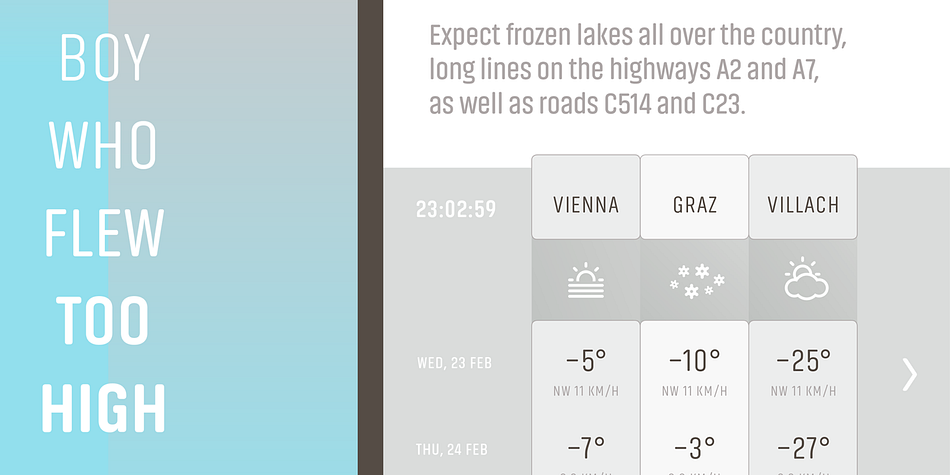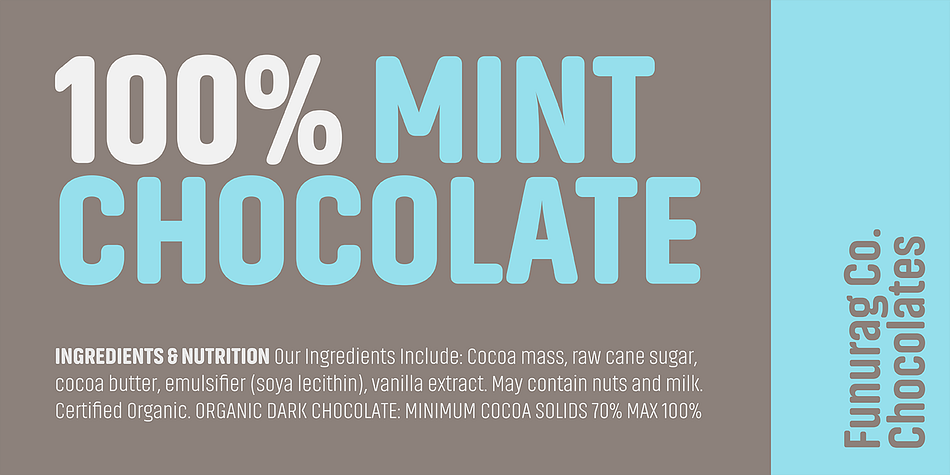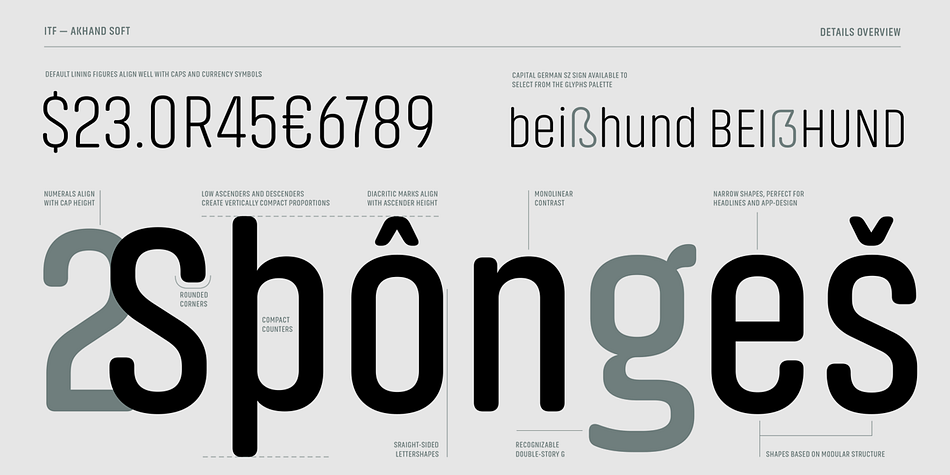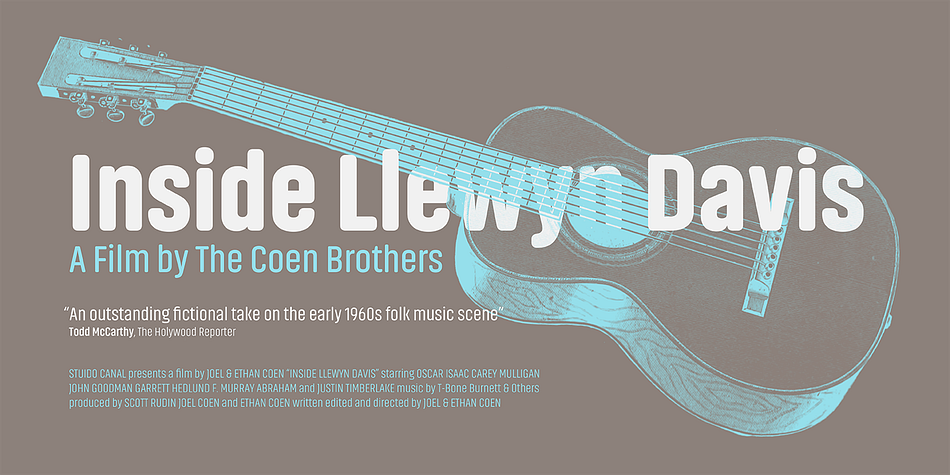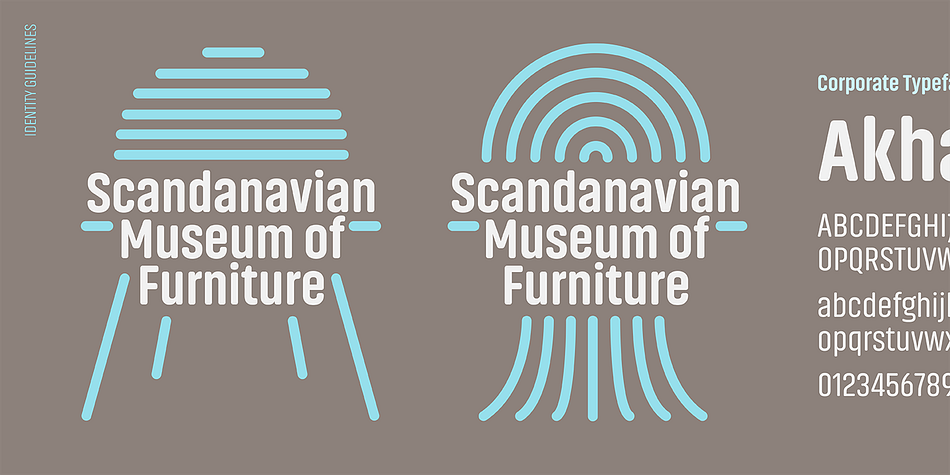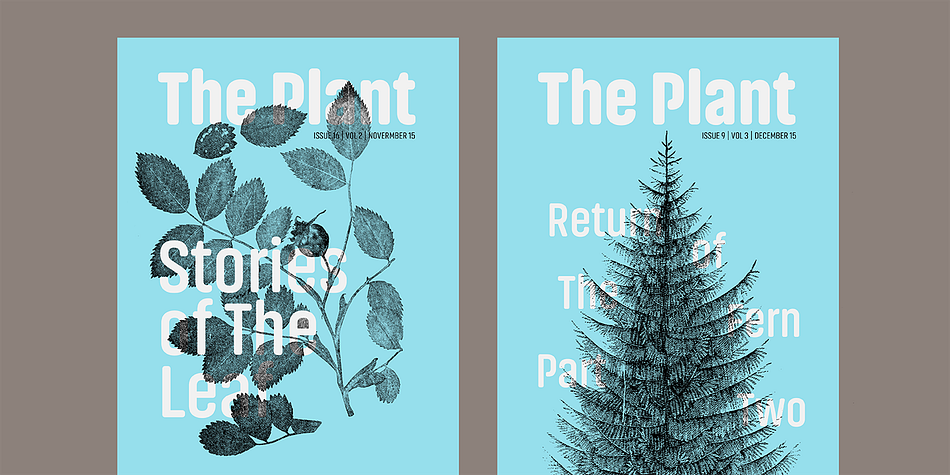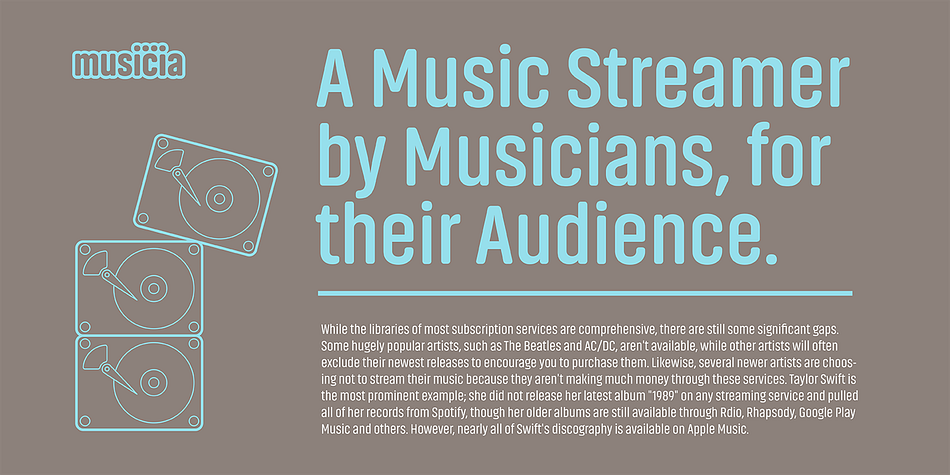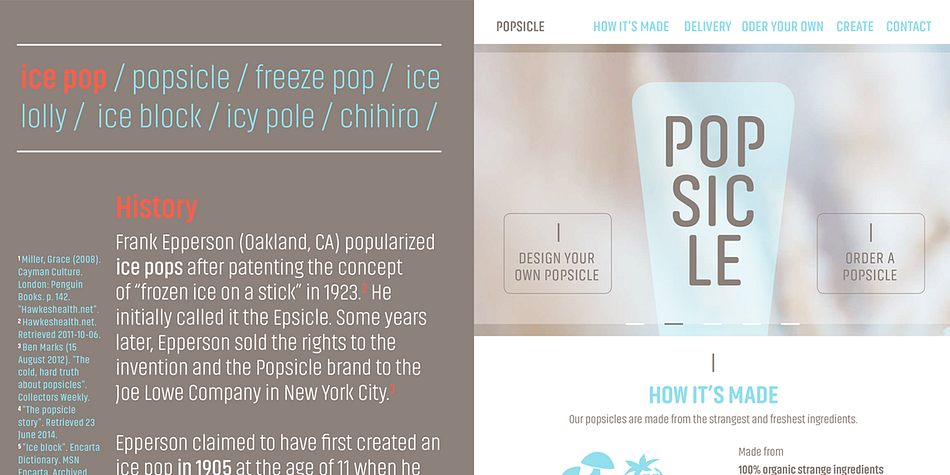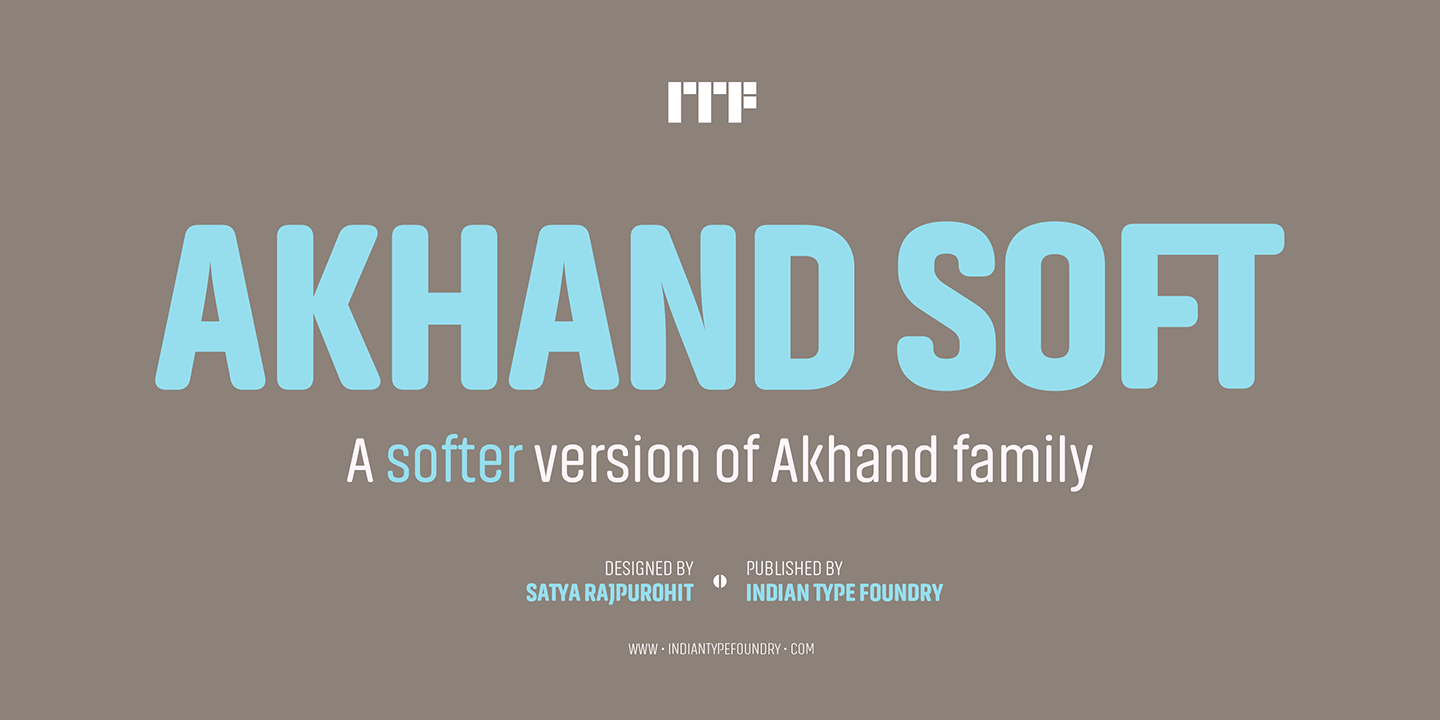
Designed by Satya Rajpurohit, Akhand Soft is a display sans font family. This typeface has eight styles and was published by Indian Type Foundry.
Akhand Soft is an extension to our popular Akhand series.
All of the corners of the typeface’s characters are rounded, making Akhand Soft a friendlier and more informal variant of the Akhand Latin family. Featuring condensed, straight-sided letterforms, Akhand Soft is a virtually mono-linear sans serif design. The construction of the letters are based on a modular structure, but not every aspect appear constructed.
Its forms look great on their own in logos, and headlines function well when different weights are combined together. The eight fonts are part of the larger Akhand super family, which covers a variety of Indian scripts.